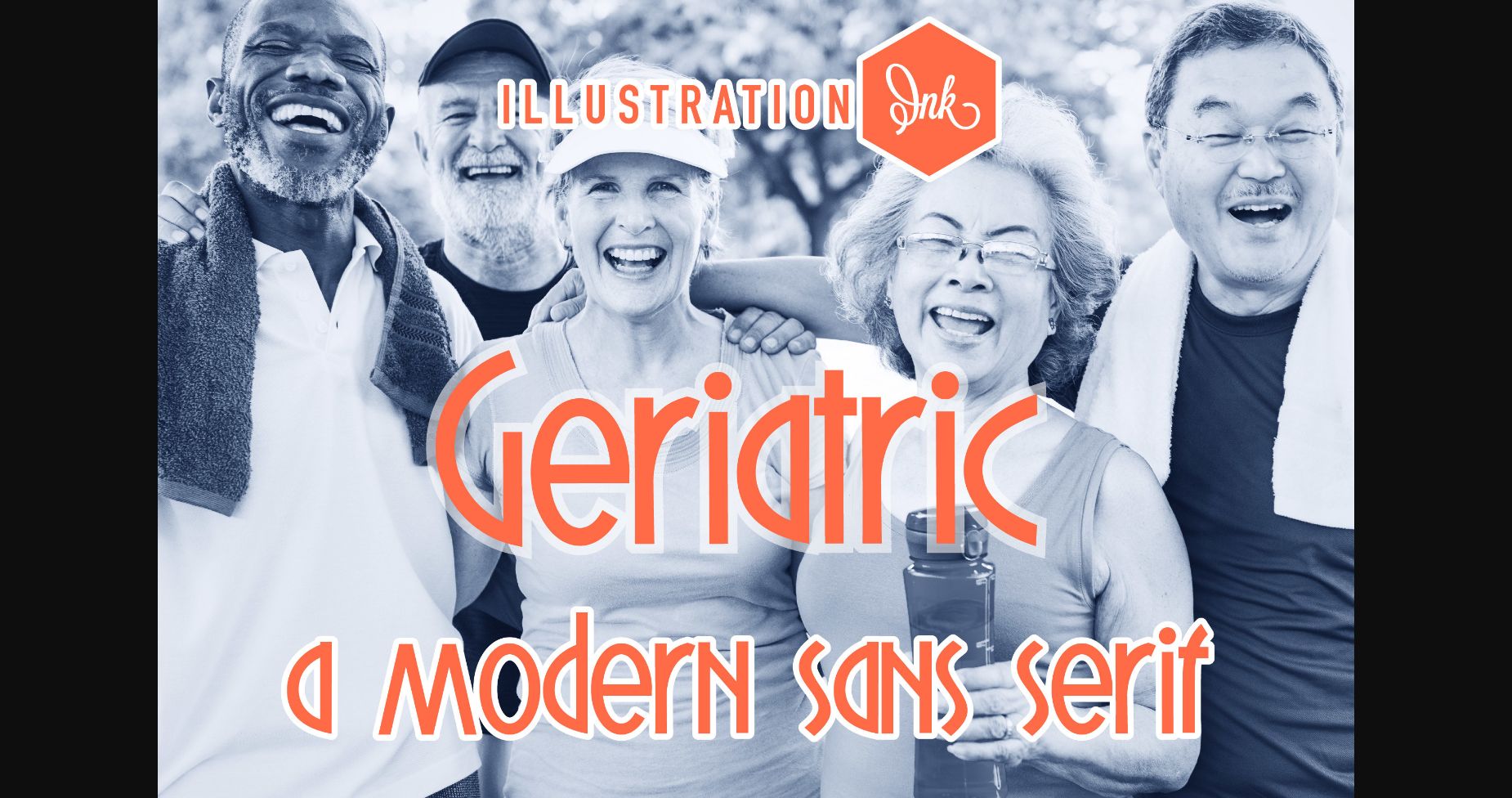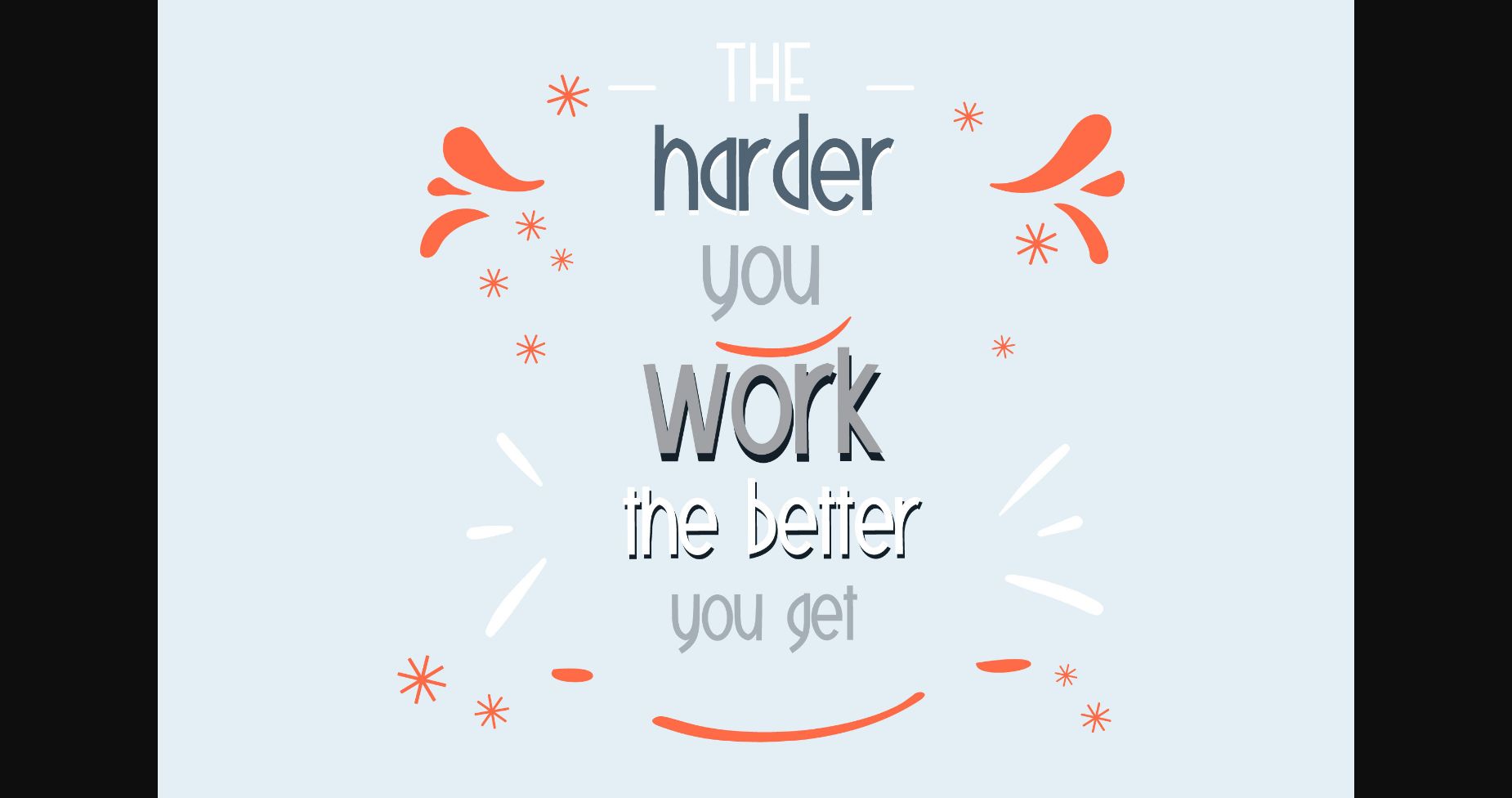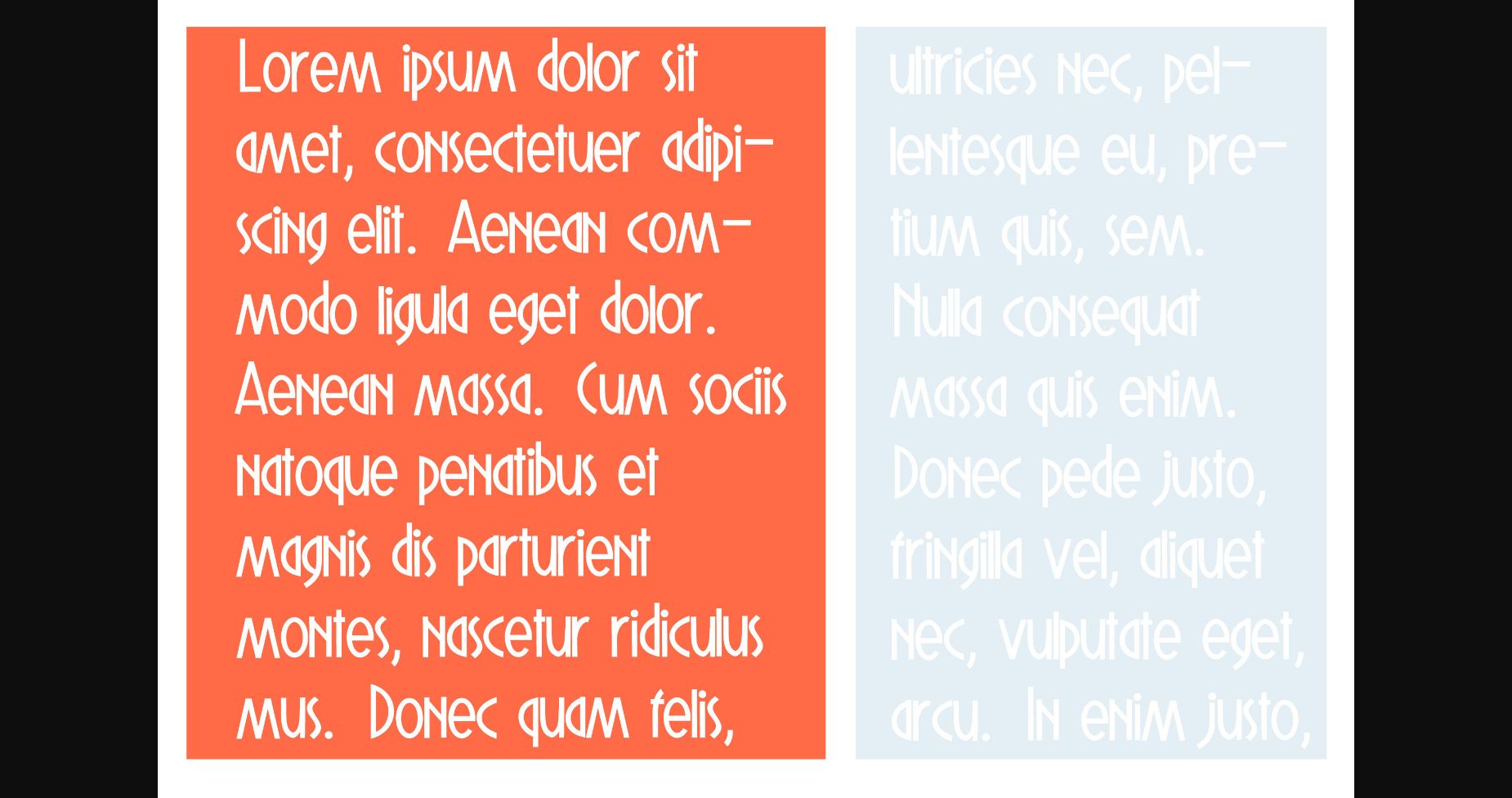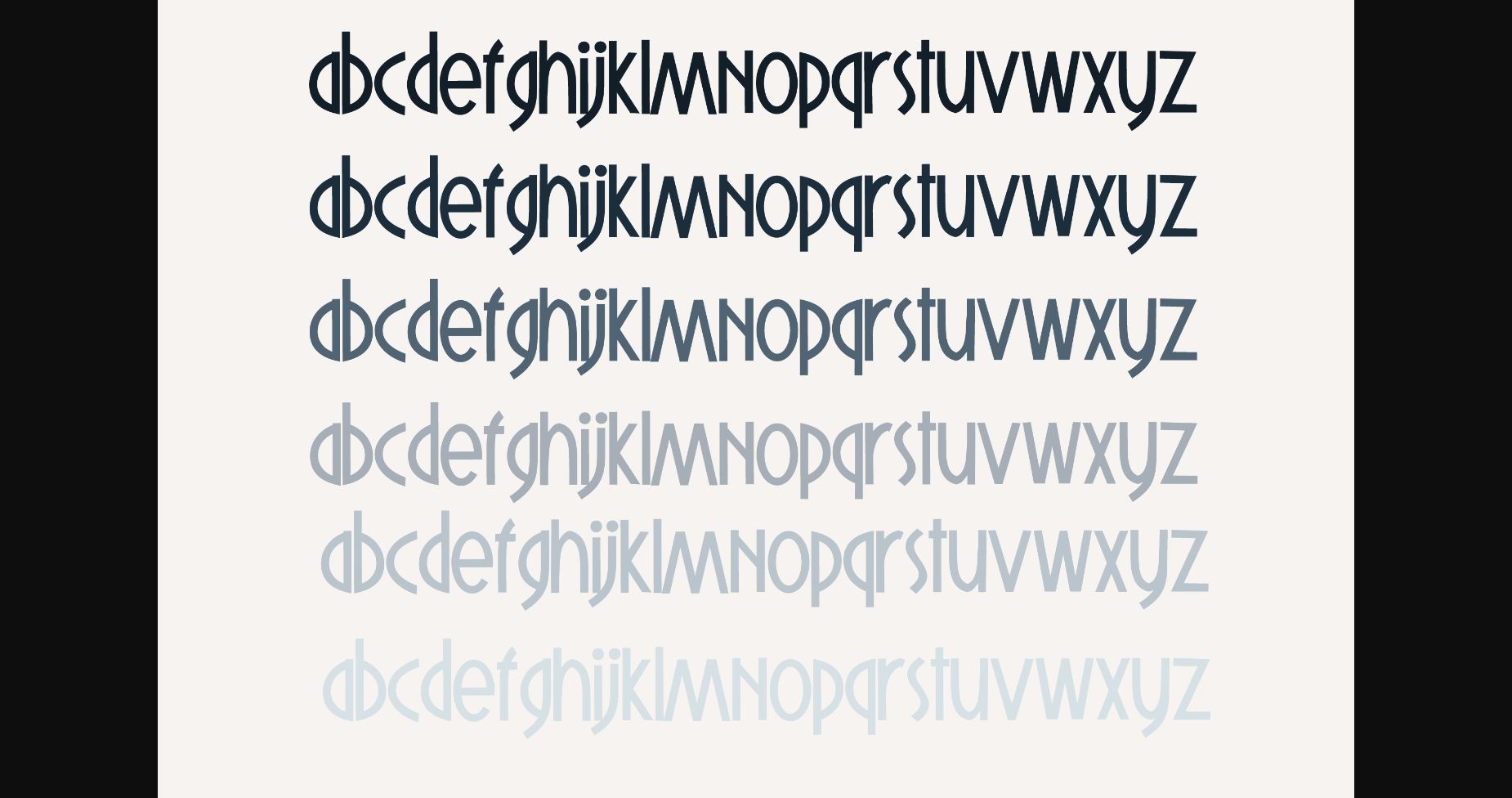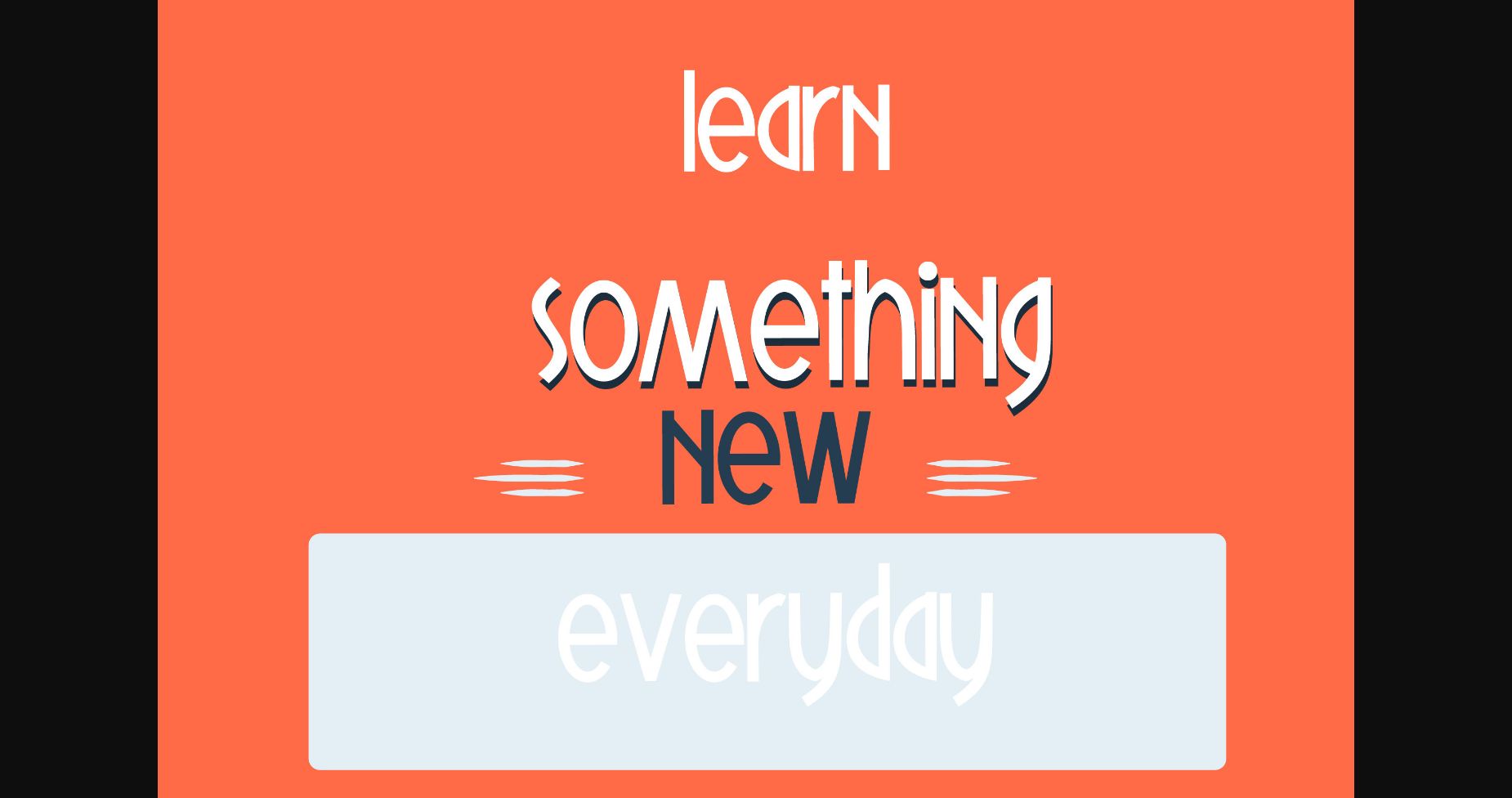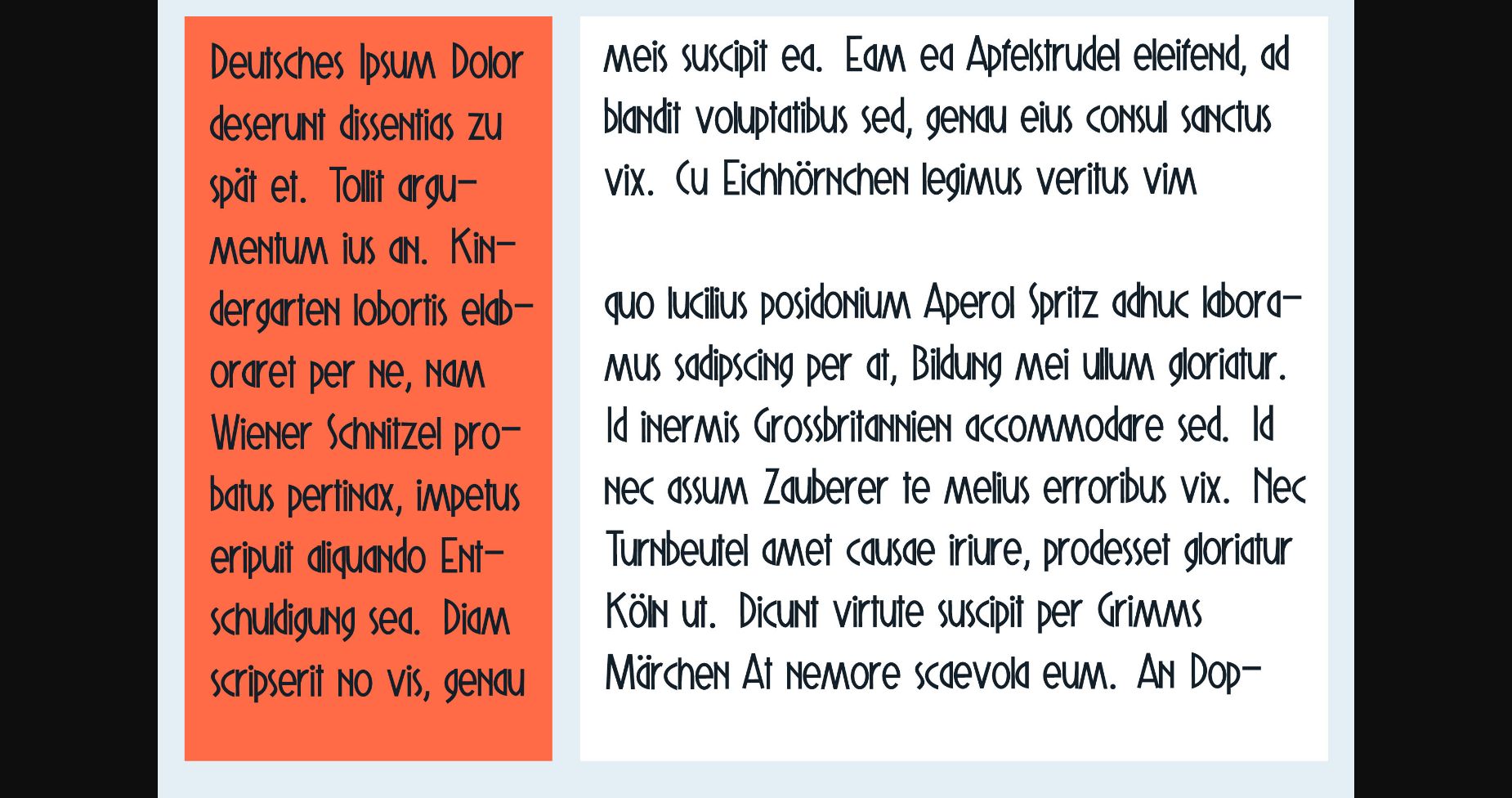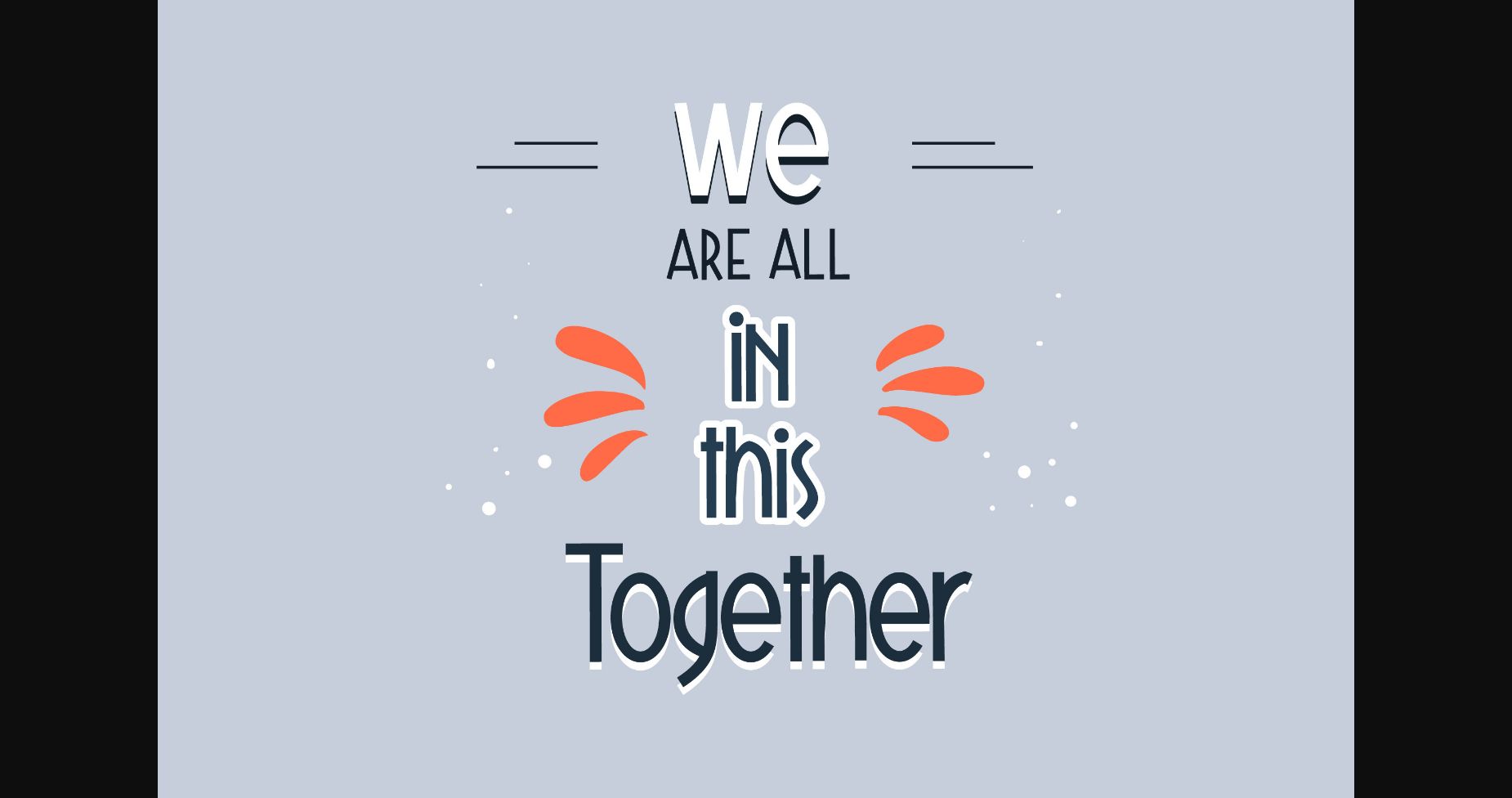
Geriatric is a modern and cool sans serif font. Neat and sleek, this font is perfect for a wide spectrum of applications, be it posters, headlines, stationery, or even apparel and accessories.